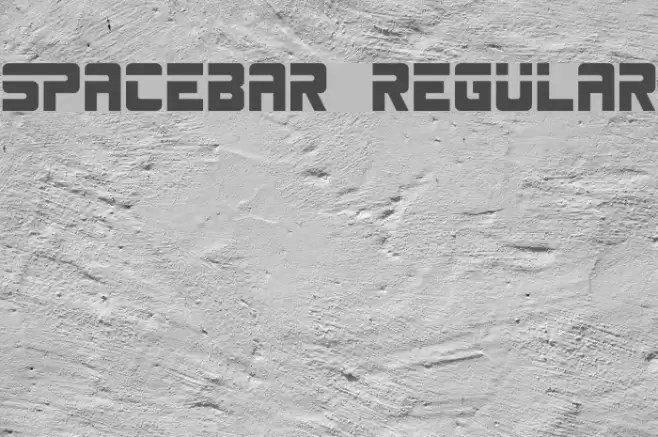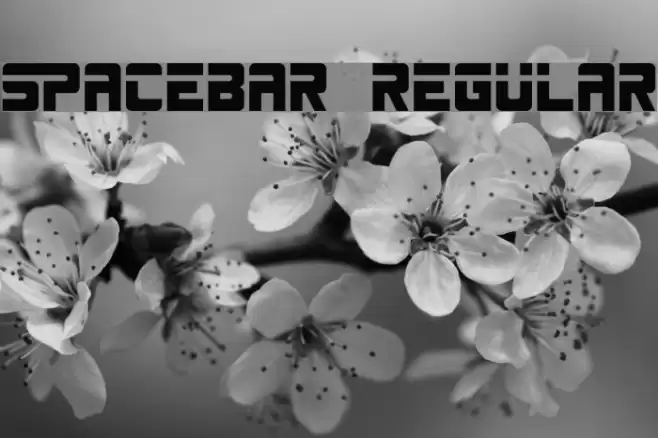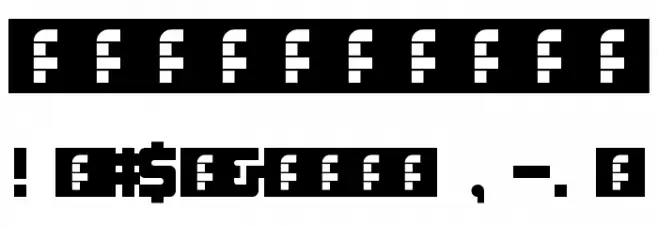
SPACEBAR Regular Font
SPACEBAR Regular Description
This font features a futuristic and geometric design, characterized by bold, block-like letters with sharp angles and clean lines. The uppercase letters are uniform in height, giving a sense of stability and strength. The design incorporates a modern aesthetic with a slight industrial feel, making it suitable for technology-themed projects. The characters are evenly spaced, providing a balanced and cohesive appearance. The font includes a full set of uppercase and lowercase letters, numbers, and a variety of special characters, ensuring versatility for different design needs.
A futuristic, geometric font with bold, block-like characters from Uncategorized fonts.
- Proposed Projects: Ideal for technology branding, sci-fi posters, video game titles, and futuristic-themed designs.